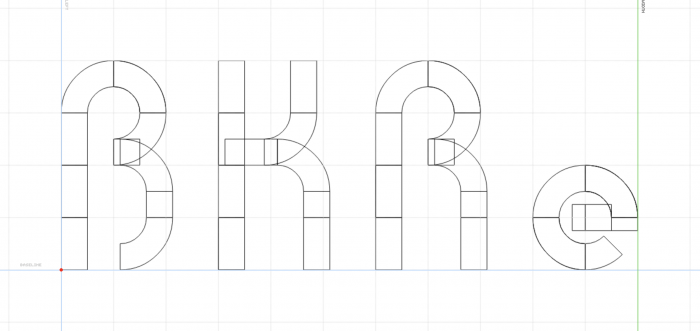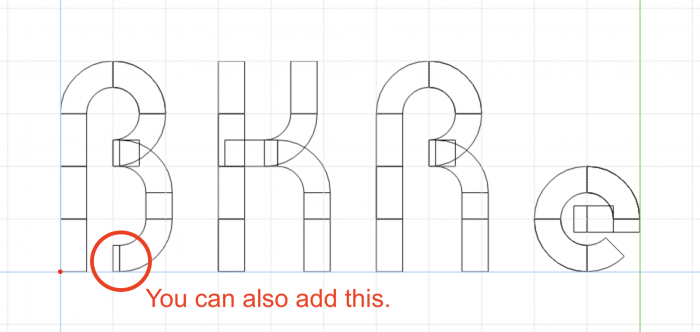
Well,Great! And of 2 Versions of PF (Penny Farting) The 1st Make a Effectal Font To be more Good and the 2nd is Normal Font!
Some minor improvements for B, K, R and e. Looking forward to the rest of this suggestive font.
@Elmoyenique is soo Small...
But,not Problem Friend! Is coming to be Solve!
I'll see what I can do!
Fixed for the most part. Can't figure out how you got the little stub at the bottom of the B though.
That "little stub" is probably composite brick. Remember the "tutorial" on your other font ?
Is B O V I N :)